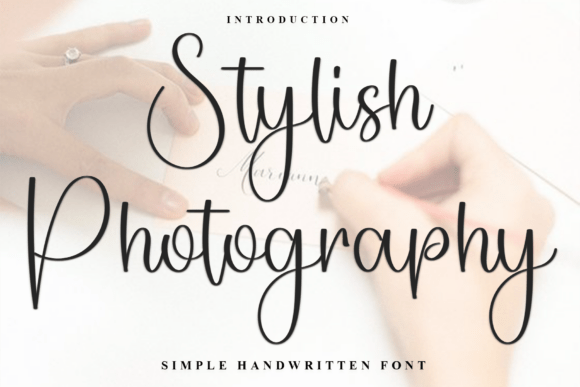
Stylish Photography Font: A Web Design Review
I was recently deep in the wireframing phase for a boutique lifestyle brand’s website redesign when I realized their existing typography felt too sterile. The client wanted warmth, intimacy, and a sense of curated elegance, but every modern serif I tested looked too corporate, and most script fonts felt illegible on mobile screens. That is when I decided to test Stylish Photography in the hero section mockup. Within minutes, the entire mood of the landing page shifted from generic e-commerce to something that felt like a personal invitation.
As web designers and digital product creators, we know that choosing the right display font is about more than just aesthetics; it is about performance, hierarchy, and user experience. After integrating Stylish Photography into several live projects, including a coaching portfolio and an artisanal shop homepage, I have found it to be a surprisingly versatile asset in the Script Amp category. It bridges the gap between high-end editorial design and approachable digital branding, provided you understand its specific strengths and limitations in responsive environments.
Defining the Digital Personality
Stylish Photography is not your standard cursive typeface. While many scripts rely on tight connections and elaborate flourishes that can become muddy at smaller pixel sizes, this font features distinctive strokes with a soft, unique touch. In a browser environment, this translates to excellent screen readability. The letterforms have enough breathing room to remain crisp on retina displays, and the weight distribution prevents the thin lines from disappearing against complex background images.
The visual personality strikes a balance that is difficult to find in free or budget fonts. It feels premium without being stuffy, and creative without sacrificing professionalism. When used in a website header or as an accent in social media graphics, it communicates authenticity. For my recent project involving a wellness course sales page, the font added an emotional layer to the headline that a clean sans serif simply could not achieve. It signaled to visitors immediately that this was a human-centric brand, not a faceless corporation.
Real-World Application in Hero Sections
The true test of any display font is how it performs in the hero section—the prime real estate of any website. I utilized Stylish Photography for a primary headline overlaying a muted video background. The contrast worked beautifully because the font’s character shapes are distinct enough to stand out even when the background has texture or movement. However, I did have to adjust the line-height significantly. Because of the unique stroke variations, the default leading felt too tight, causing ascenders and descenders to clash visually. Increasing the line spacing by 20% created the necessary negative space, allowing the typeface to breathe and improving overall scanability.
For call-to-action areas, I found this font works best for supportive text rather than primary buttons. Using it for a sub-headline above a "Book Now" button created a lovely visual rhythm, guiding the eye naturally toward the conversion point. Conversely, using it inside the button itself proved problematic during mobile testing. On smaller viewports, the decorative nature of the glyphs reduced legibility, forcing users to squint. This reinforced a crucial UX principle: reserve Stylish Photography for moments of emphasis, not functional interaction.
Responsive Behavior and Mobile Considerations
Mobile-first design is non-negotiable, and decorative fonts often fail this test. I was pleasantly surprised by how Stylish Photography adapted to responsive breakpoints, but it does require intentional CSS management. On desktop, the font shines at larger sizes (48px and above), where the nuances of the design are fully visible. As the viewport shrinks to tablet and mobile sizes, simply scaling the font down proportionally can result in text that looks spindly or hard to read.
My recommended approach is to set specific size floors. If the font drops below 24px on mobile, consider switching to a complementary serif or bold sans serif for that specific element. Alternatively, use Stylish Photography only for single-word accents or short phrases on mobile devices while keeping longer headlines in a more utilitarian typeface. This ensures that your brand identity remains consistent without compromising accessibility or load times. Remember that webfonts add to your page weight; since this is a specialized display font, loading it only when necessary helps maintain fast performance scores.
- Avoid long paragraphs: Never use this font for body copy, blog post content, or dense informational sections. It causes cognitive fatigue and slows down reading speed.
- Mind the contrast: Ensure WCAG compliance when placing this font over images. The softer strokes may require a subtle text shadow or gradient overlay to maintain sufficient contrast ratios.
- Test form fields: Do not use Stylish Photography for input labels, navigation menus, or footer links. Stick to highly legible system fonts or clean grotesques for UI elements.
- Check alternates: Utilize OpenType features if available. Swashes and stylistic alternates can prevent repetitive letter shapes in headers, adding a custom logo design feel to standard text.
Strategic Font Pairing for Brand Identity
No font exists in a vacuum, and Stylish Photography demands a strong supporting cast. Because it carries so much personality, pairing it with another decorative font usually leads to visual chaos. In my web design practice, I have found the most success pairing it with geometric sans serifs or neutral serifs. For a modern, tech-forward creative agency, I paired it with a clean, low-contrast sans serif for body text. The juxtaposition highlighted the organic curves of Stylish Photography while keeping the site feeling current and functional.
For a more traditional or editorial look, such as a wedding photographer’s portfolio or a luxury candle shop, pairing it with a classic transitional serif creates a timeless aesthetic. The serif handles the heavy lifting of information delivery, while Stylish Photography acts as the emotional hook. This combination reinforces brand trust; the user perceives the business as both established (serif) and personally invested (script). When building digital brand kits or templates for clients, always include these pairing guidelines to ensure they do not accidentally break the visual harmony you have established.
Licensing and Technical Implementation
Before committing to Stylish Photography for a commercial web project, verify the licensing terms specifically for web use. Desktop licenses for creating mockups or static social media graphics often differ from webfont licenses required for embedding code on a live site. Check if the license covers the expected monthly pageviews and whether it extends to digital products like downloadable planners or course materials hosted on your domain.
From a technical standpoint, ensure you are serving the font in modern formats like WOFF2 to minimize file size. If the font family includes multiple weights or extensive alternate characters, subset the font to include only the glyphs you actually need. This is particularly important for multilingual sites; if your content is strictly English, stripping out unused character sets can significantly improve rendering speed. Also, test the fallback stack rigorously. If Stylish Photography fails to load due to network issues, your CSS should gracefully degrade to a system cursive or serif that maintains the intended layout structure without breaking the design.
Ultimately, Stylish Photography is a powerful tool for digital creators who want to inject soul into their layouts. It excels in hero sections, campaign landing pages, and branded assets where emotion drives engagement. By respecting its limitations regarding readability and sizing, and by pairing it thoughtfully with functional typefaces, you can elevate your web design projects from standard templates to memorable digital experiences. It is a reminder that even in the pixel-perfect world of UI design, there is always room for a soft, human touch.